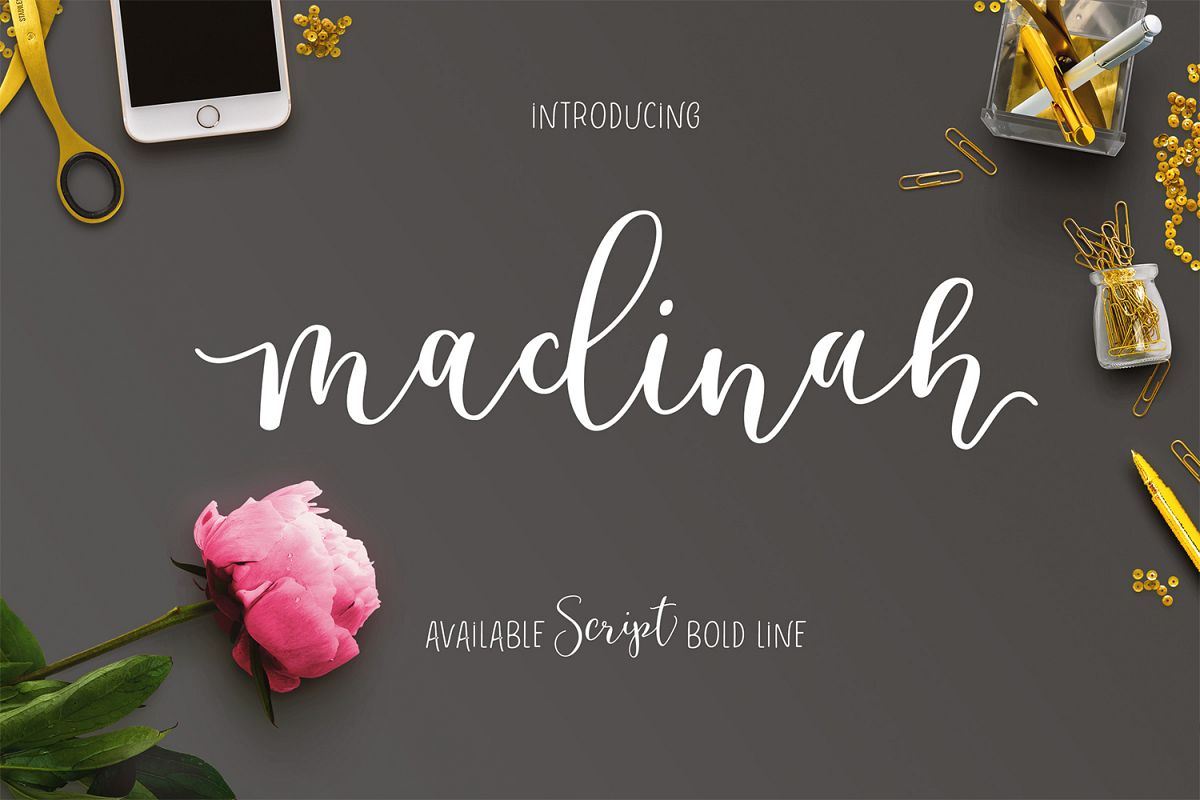
This is Madinah font collection available 1 package 3 models font latest you can get now! With pleasingly updated calligraphy hand variations that have been given an additional hand-written combination of brush and ink. This font will look beautiful on all designs, Wedding design, branding materials, blog titles, quotes and invitations, business cards.OpenType Includes: - Ligatures - Stylistic Alternates - Stylistic Sets - SwashFonts Included:. Madinah (OTF & TTF) . Marline (OTF & TTF) . Mayland (OTF & TTF) To enable Stylistic OpenType alternatives, you need a program that supports OpenType features like Adobe Illustrator CS, Adobe Indesign & CorelDraw X6-X7, Microsoft Word 2010 or later.There are additional ways to access alternate / swash, using Character Map (Windows), Nexus Font (Windows), Font Book (Mac) or software programs like PopChar (for Mac and Window).This Font has given PUA unicode (specially coded fonts). if you have a problem?